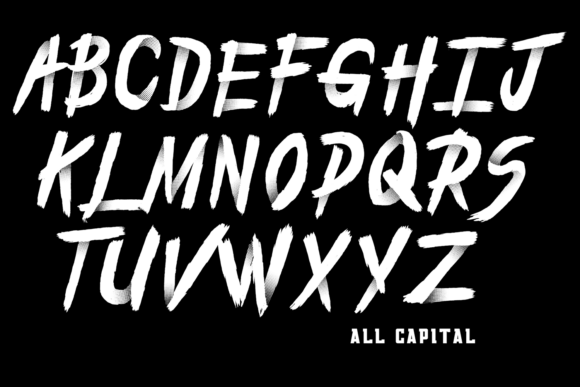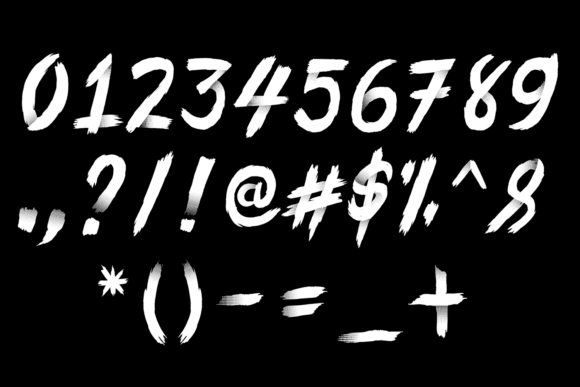
Unleash Your Creativity with From the Dead Font: A High-Energy Brush Typeface
In the world of typography, fonts play a crucial role in conveying messages, expressing emotions, and creating a lasting impression. For designers and crafters looking for a typeface that exudes energy, movement, and a touch of edginess, From the Dead Font is an excellent choice. This high-energy brush typeface is designed to make a statement, making it perfect for a variety of creative projects.
What Makes From the Dead Font Stand Out?
From the Dead Font is a unique and expressive typeface that boasts a hand-drawn texture, giving it a raw, organic feel. Its brush-like strokes and effects on the edges create a sense of movement and power, making it an ideal choice for designers who want to add a dynamic touch to their work. The font comes with both uppercase and lowercase letters, ensuring that you have a wide range of creative possibilities at your disposal.
Perfect for Edgy Branding, Grunge Posters, and Horror Titles
From the Dead Font is specifically designed for projects that require a bold, edgy, and attention-grabbing typeface. Its unique texture and expressive strokes make it perfect for:
- Edgy branding: Create a lasting impression with a bold, eye-catching logo that reflects your brand’s personality.
- Grunge posters: Add a touch of rebelliousness to your posters with a font that screams energy and movement.
- Horror titles: Create a chilling effect with a typeface that’s as eerie as it is captivating.
- Street-style designs: Give your designs a raw, urban feel with a font that’s perfect for streetwear branding and advertising.
Key Features of From the Dead Font
Here are some key features that make From the Dead Font a must-have for designers and crafters:
- Hand-drawn texture: Gives your message a raw, organic feel that’s perfect for creating a lasting impression.
- High-energy brush typeface: Adds movement and power to your designs, making them stand out from the crowd.
- Uppercase and lowercase letters: Provides a wide range of creative possibilities, making it perfect for a variety of projects.
- Expressive strokes: Creates a sense of emotion and energy, adding depth to your designs.
- Effects on the edges: Adds a touch of edginess and sophistication, making your designs more captivating.
Tips for Using From the Dead Font
To get the most out of From the Dead Font, here are some tips to keep in mind:
- Experiment with different colors: From the Dead Font looks great in bold, vibrant colors that match its high-energy personality.
- Play with textures: Combine the font’s hand-drawn texture with other textures to create a unique, layered look.
- Use it sparingly: While From the Dead Font is perfect for headlines and titles, use it sparingly to avoid overwhelming your design.
- Pair it with other fonts: Combine From the Dead Font with other fonts to create a striking contrast that adds depth to your design.
From the Dead Font is a high-energy brush typeface that’s perfect for designers and crafters looking to add a touch of edginess and movement to their work. With its hand-drawn texture, expressive strokes, and effects on the edges, this font is sure to make a lasting impression. Whether you’re working on edgy branding, grunge posters, horror titles, or street-style designs, From the Dead Font is an excellent choice. So why wait? Unleash your creativity and take your designs to the next level with From the Dead Font.